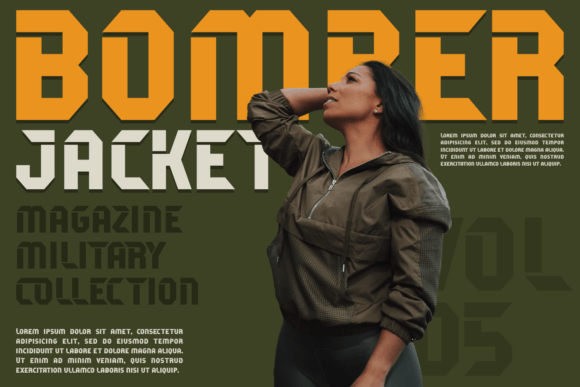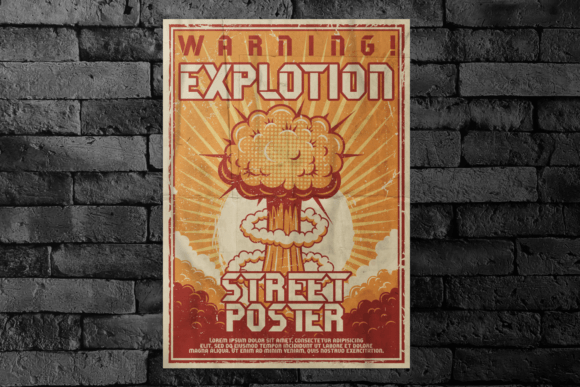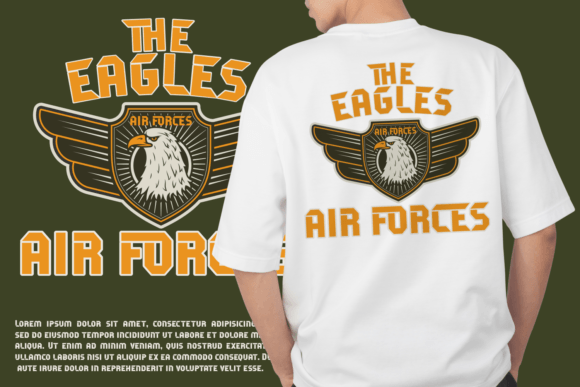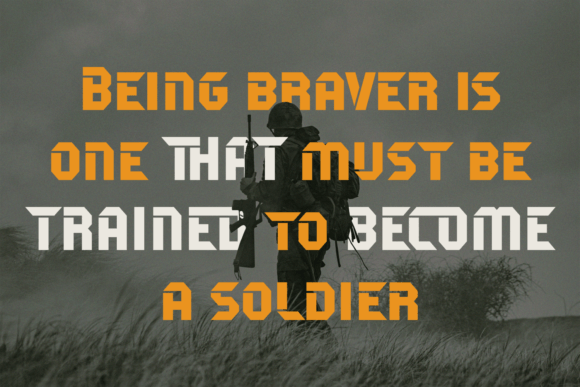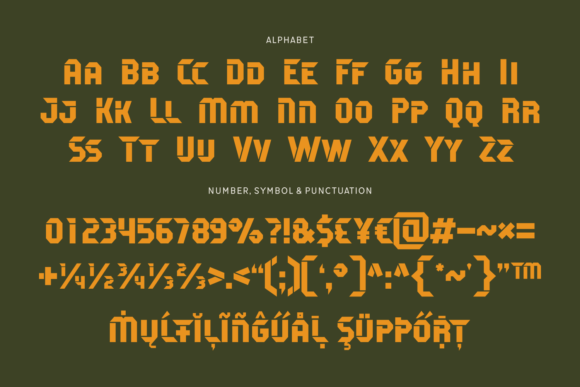
Unlock the Power of the Armed Force Font
Do you remember that moment when a single font choice completely transformed the look and feel of your design project? For many creatives, it’s a thrilling experience that can make all the difference between a good design and a great one. That’s exactly what the Armed Force Font can do for your next military-themed project.
This bold and modern display font is inspired by the rugged aesthetic of military-style typefaces, making it the perfect match for logos, branding, magazines, and websites with a military twist. With its PUA encoding, you’ll have easy access to all the glyphs, giving you the flexibility to create unique and eye-catching designs. Whether you’re a seasoned designer or just starting out, the Armed Force Font is a valuable addition to your toolkit, offering a wealth of creative possibilities.
- Unique Characteristics: The Armed Force Font features a unique blend of modern and military-inspired design elements, including bold lines, geometric shapes, and a strong, assertive feel.
Armed Force Font Review
As a designer, I was intrigued by the Armed Force Font. ✨ The font’s bold and edgy aesthetic immediately caught my attention. The font’s designer has done an excellent job in creating a font that is both striking and attention-grabbing. The font’s use of strong lines and geometric shapes gives it a modern and futuristic feel that is perfect for use in action-packed themes or for making bold statements.
Some of the key strengths of the Armed Force Font include:
- ✨ High legibility: The font is easily readable even at small font sizes.
- ✨ Versatility: The font can be used in a variety of contexts, from gaming and technology to fashion and sports.
However, there are also some limitations to the Armed Force Font:
- ⚠️ Limited expressiveness: The font’s bold and edgy aesthetic may not be suitable for use in more subtle or delicate contexts.
- ⚠️ Limited language support: The font may not be optimized for use with certain languages or scripts.
Overall, I would say that the Armed Force Font is a solid choice for designers who need a bold and attention-grabbing font. While it may not be suitable for every context, it is a great option for use in action-packed themes or for making bold statements.
Tips for Getting the Most Out of Armed Force Font
Use Armed Force Font to create bold, attention-grabbing headlines and titles.
Pair Armed Force Font with other bold fonts for a striking contrast.
Use Armed Force Font in military-themed designs, such as logos, posters, and flyers.
Armed Force Font is ideal for:
Creating military-themed designs, such as logos, posters, and flyers.
Adding a bold, attention-grabbing touch to your designs.
Pairing with other bold fonts for a striking contrast.
The font features a clean and modern design, with a strong emphasis on legibility and readability. It is optimized for digital use and works well in various screen resolutions and sizes.